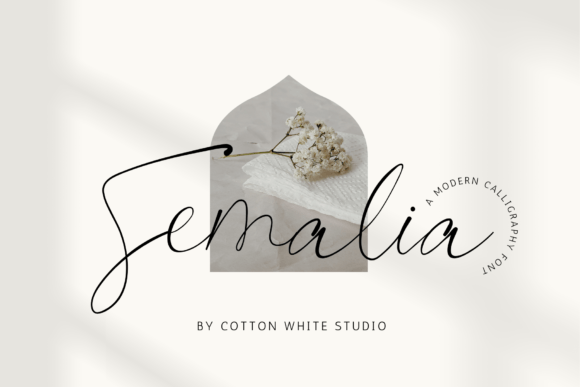
Semalia Font
Unleash the Enchanting Charm of Semalia Font: A Stroke of Beauty for Your Creative Endeavors
In a world saturated with digital creations, the allure of handwritten artistry remains unparalleled. Semalia Font, a captivating script font family, embraces this timeless charm, inviting you to infuse your designs with a touch of elegance and authenticity.
Crafted with meticulous care by the esteemed Cotton White Studio, Semalia embodies the essence of sophistication and grace. Its meticulously crafted curves and delicate strokes evoke a sense of warmth and intimacy, reminiscent of cherished handwritten letters or the heartfelt notes penned by loved ones.
Immerse yourself in the versatility of Semalia, a font that seamlessly adapts to a myriad of creative expressions. Whether you're crafting heartfelt wedding invitations, expressing gratitude with personalized thank you cards, or capturing poignant quotes to inspire and uplift, Semalia becomes your trusted companion, adding a touch of enchantment to every word.
With Semalia, your greeting cards blossom into exquisite expressions of affection, conveying sentiments with an eloquence that resonates deeply. Logos and business cards adorned with Semalia's graceful lines exude professionalism and leave a lasting impression, setting your brand apart from the mundane.
Step into a realm where creativity knows no bounds, where every design element is imbued with a handwritten charm that captivates and engages your audience. Semalia transforms the ordinary into the extraordinary, breathing life into your digital creations with its undeniable allure.
Embark on a creative odyssey with Semalia, the font that ignites your imagination, sparks inspiration, and leaves an indelible mark on the hearts of those who encounter your designs.